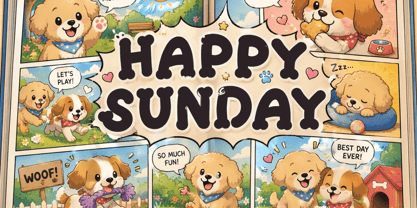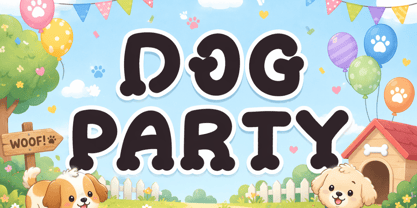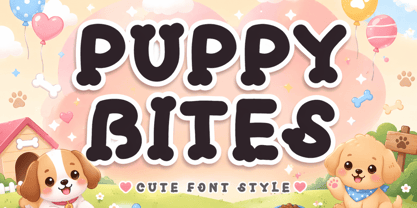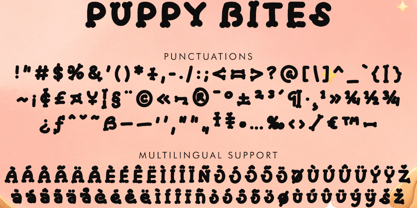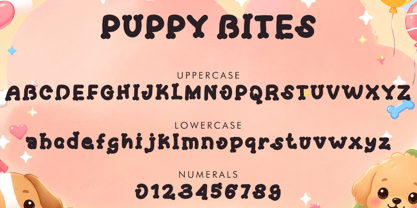
Puppy Bites
by Yoga Letter
The Puppy Bites Font Family was designed by Isroni Yoga Prasetya and published by Yoga Letter. Puppy Bites contains 1 styles. More about this family
“Puppy Bites” is a unique and cute display font. It features uppercase and lowercase letters, numerals, punctuation, and multilingual support. It’s perfect for comics, magazines, posters, print, banners, branding, stickers, logos, holiday, vacation, summer, spring, Easter, back to school, patriotic, animation, animal, dog fonts, cute font and more.
Designers: Isroni Yoga Prasetya
Foundry: Yoga Letter